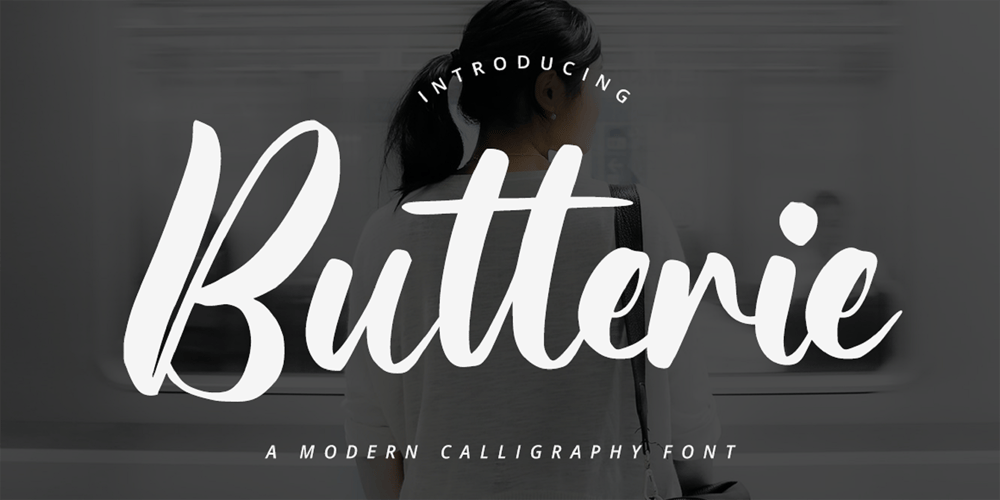
Butterie Font Family was designed by Heri Imanudin and published by Krafted. Butterie contains 1 styles and family package options. Introducing Butterie – A Calligraphy FontButterie, a modern calligraphy font, designed with the mix of modern and classic vibe. It’s a must have font for your classy website, for your social media branding, Pinterest banners, printed invitations, and more!Butterie Calligraphy font is a timeless font, will never go wrong for your audience, clients, guests or anyone around you!What you’ll get: Multilingual & Ligature Support Full sets of Punctuation and Numerals Compatible with: Adobe Suite Microsoft Office KeyNote Pages Software Requirements: The fonts that you’ll receive in the pack are widely supported by most software. In order to get the full functionality of the selection of standard ligatures (custom created letters) in the script font, any software that can read OpenType fonts will work. We hope you enjoy this font and that it makes your branding sparkle! Feel free to reach out to us if you’d like more information or if you have any concerns.